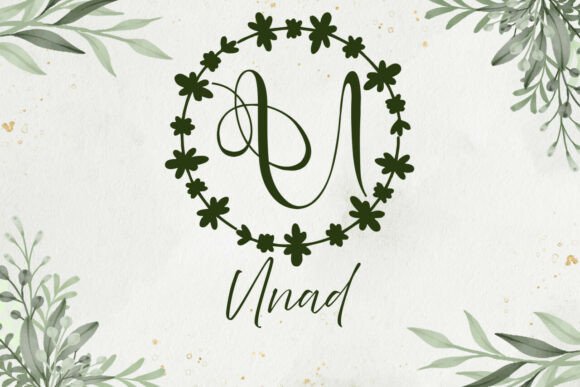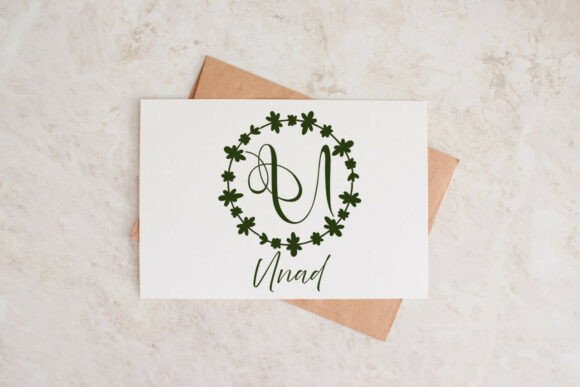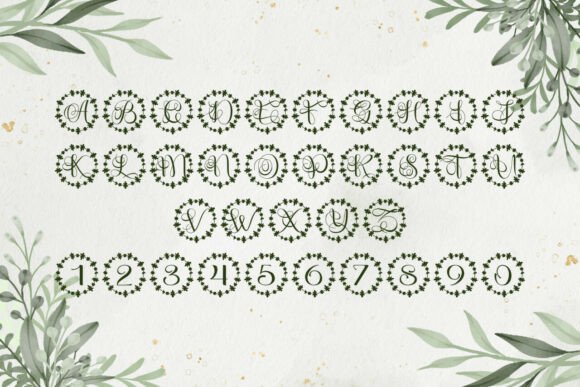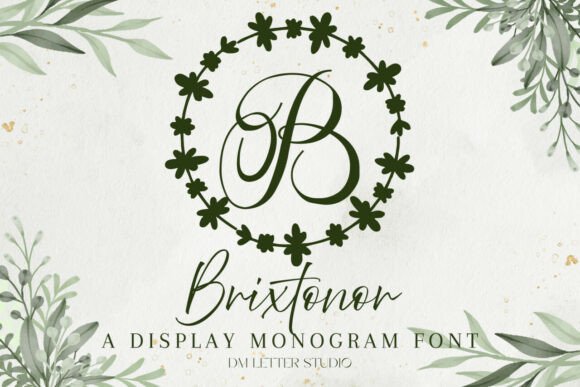
Meet Brixtonor: The Monogram Font That Elevates Your Designs
First Impressions: What I Love About Brixtonor
- ✨ **Smooth and confident strokes**: The font’s strokes feel smooth and confident, making it perfect for logos, seals, and other design elements.
- ✅ **Readable and crisp**: The open counters keep tiny tags readable and thumbnails crisp, ensuring that your designs look great in various sizes.
- 💕 **Pairs beautifully with other fonts**: Brixtonor pairs beautifully with refined serifs and quiet humanist sans fonts, making it easy to create polished layouts.
- 🤔 **Limited glyphs**: As a monogram font, Brixtonor is designed specifically for initials and may not have the extensive character set you’re used to.
The Story Behind Brixtonor
Brixtonor was designed with the goal of creating a monogram font that would elevate simple initials into stunning emblems. The designer drew inspiration from classic typography and modern design trends to create a font that’s both timeless and trendy.
| Font Name | Brixtonor Monogram Font |
| Author | Sharon ( DmStudio ) |
| What is Brixtonor best used for? | Brixtonor is perfect for wedding suites, boutique logos, keepsake gifts, foil seals, and premium packaging. |
| Is Brixtonor available in different weights or styles? | Currently, Brixtonor is available in a single weight, but the designer may release additional weights or styles in the future. |